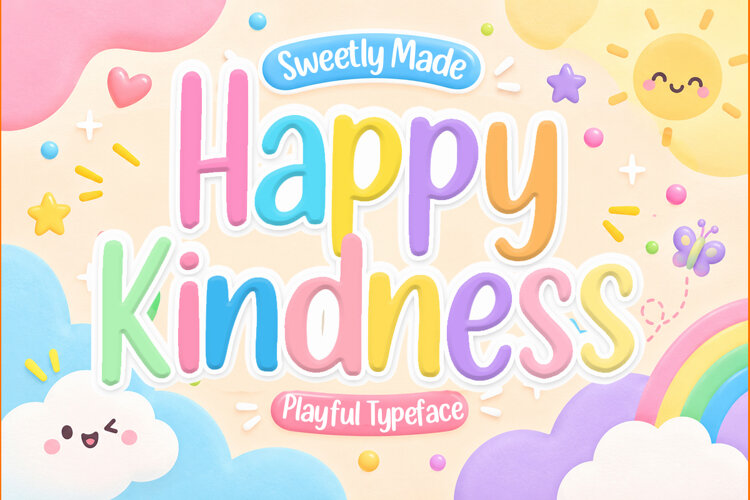
Happy Kindness – Playful & Whimsical Display Typeface
Spread joy and warmth in your design projects with Happy Kindness, a bright, bubbly, and cheerful display font crafted to bring a smile to anyone's face! Featuring soft, rounded letterforms and a sweet, friendly aesthetic, this typeface is perfect for kids' products, storybooks, nursery decor, birthday invitations, cute branding, and playful packaging.
Add a touch of sweetness and happiness to your creative ideas today!